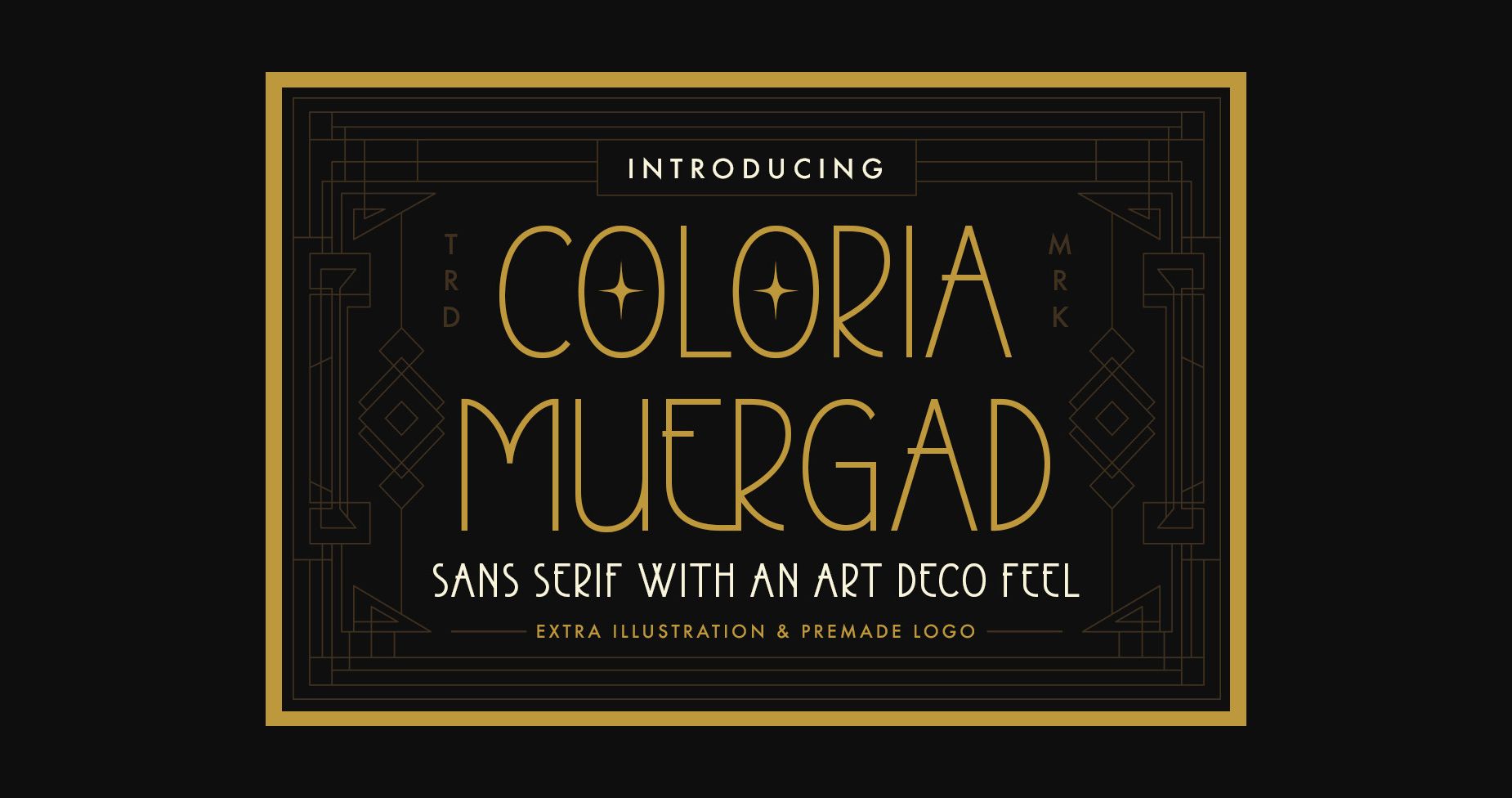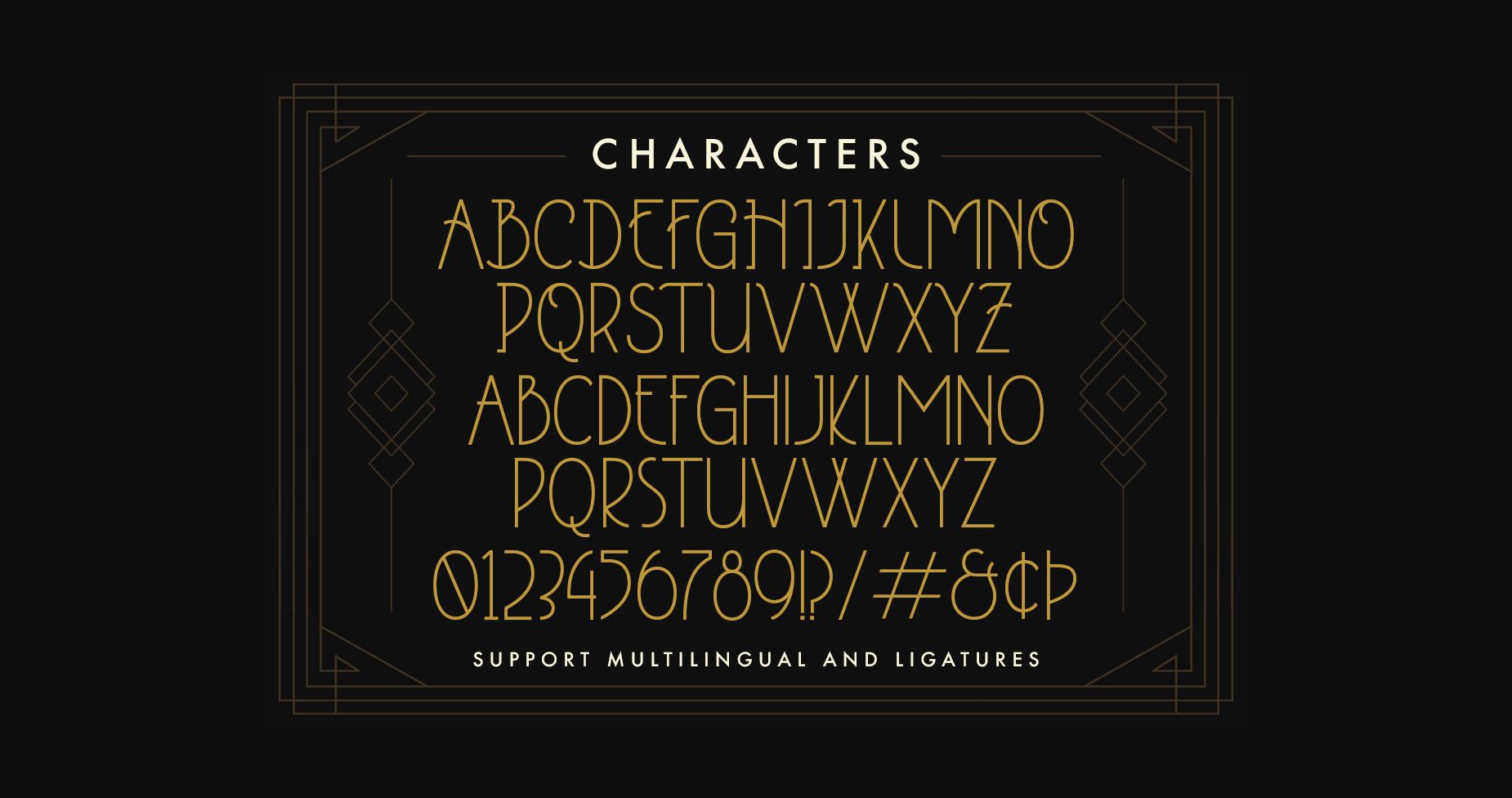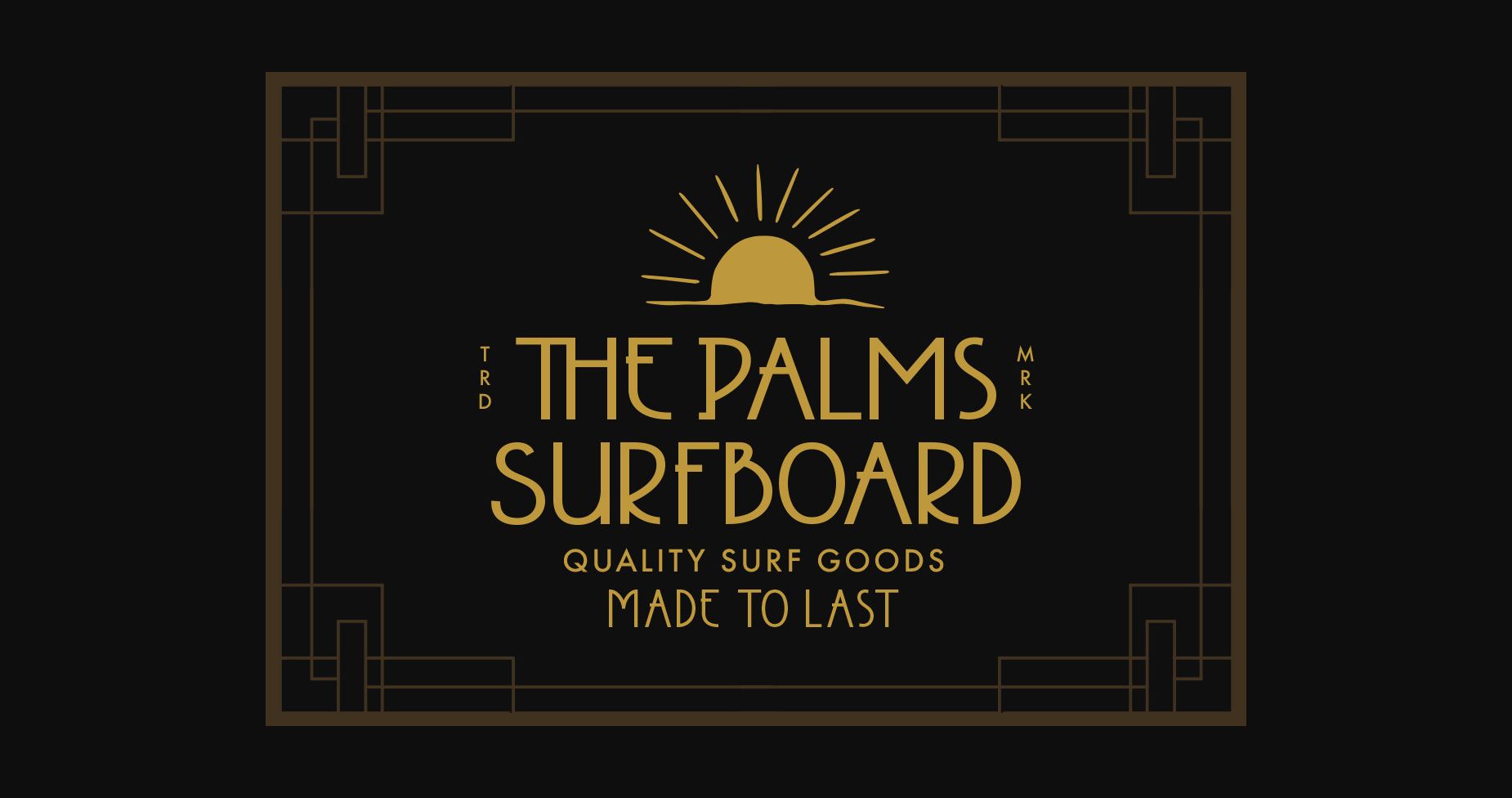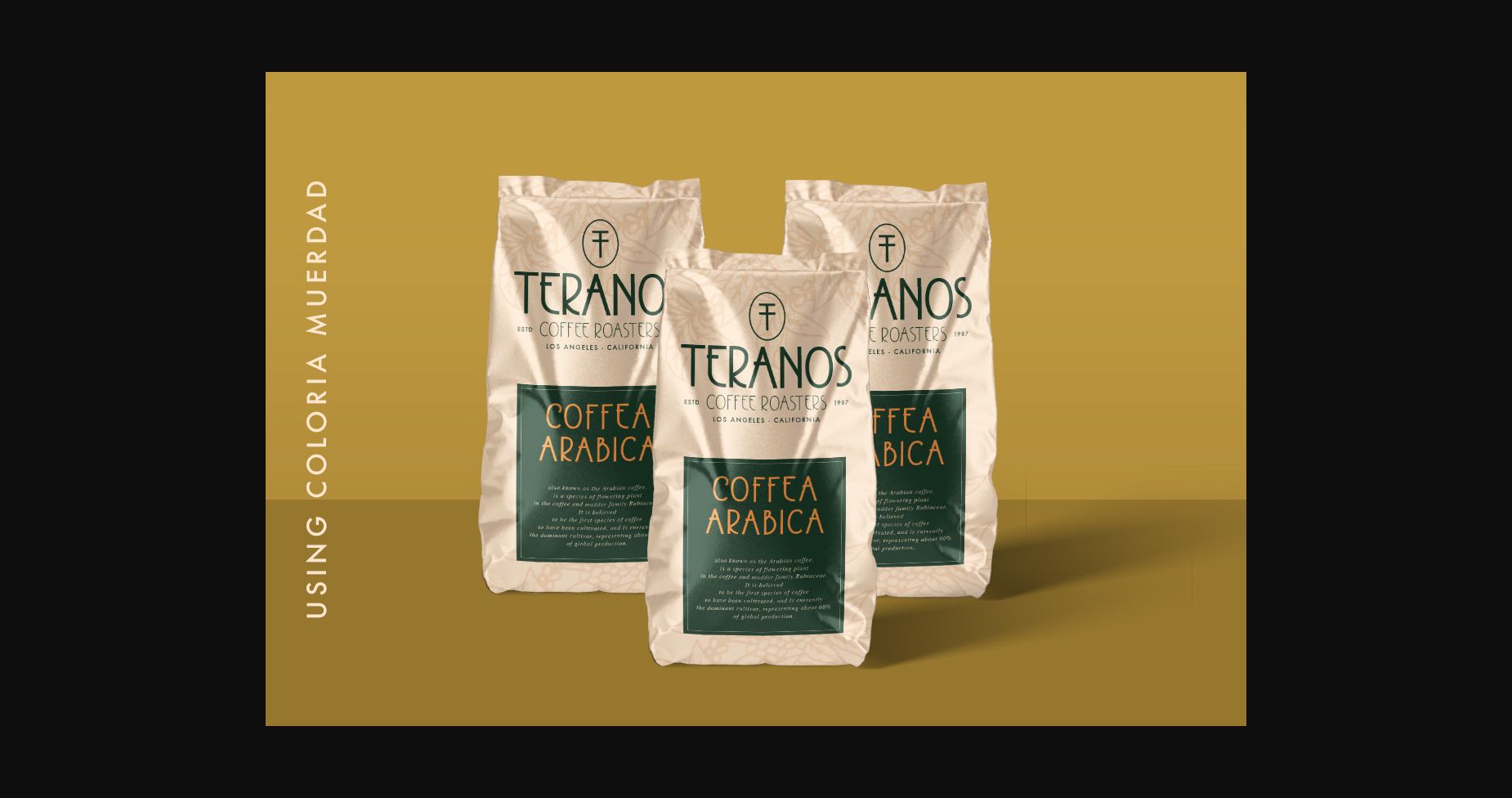
Coloria Muergad Font
About Coloria Muergad Font
Coloria Muergad is a delicate and slim sans serif font. Add it confidently to your favorite creations and let yourself be amazed by the outcome generated.